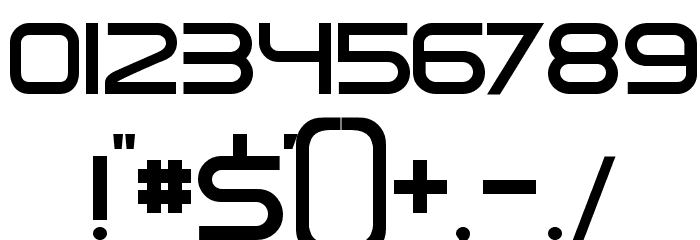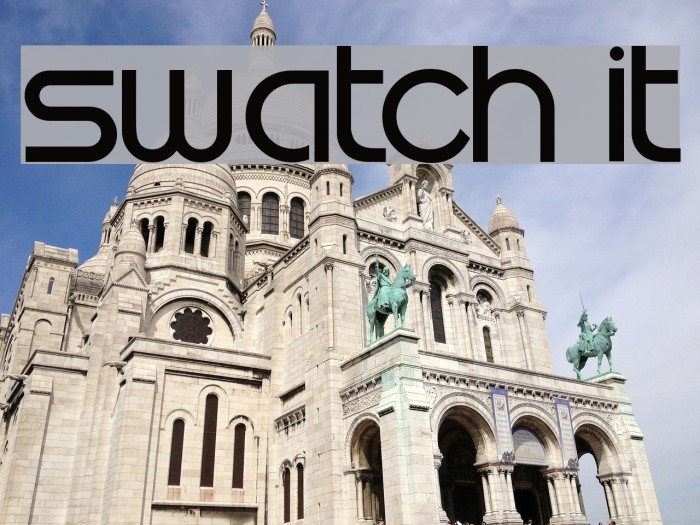
Swatch it Font
This font features a sleek, modern design with clean lines and a geometric structure. The characters are uniformly shaped, providing a sense of balance and harmony. The rounded edges and consistent stroke width give it a contemporary and approachable feel. It maintains a uniform height across both uppercase and lowercase letters, enhancing readability. The numerals are distinct and align well with the overall style, while the special characters integrate seamlessly, maintaining the font's cohesive appearance.
A modern, geometric font with clean lines and rounded edges.
- Proposed Projects: Ideal for branding, digital interfaces, and modern advertising campaigns.
- Use Case: Headlines, Logos, Digital Interfaces